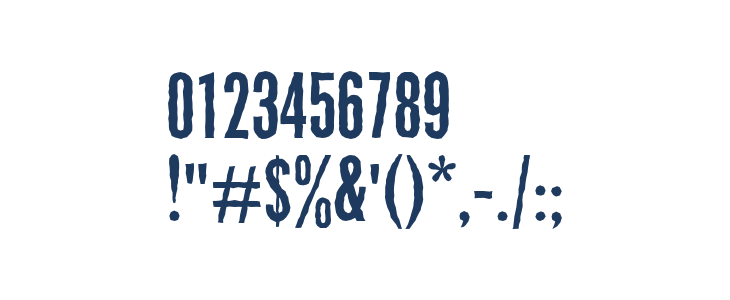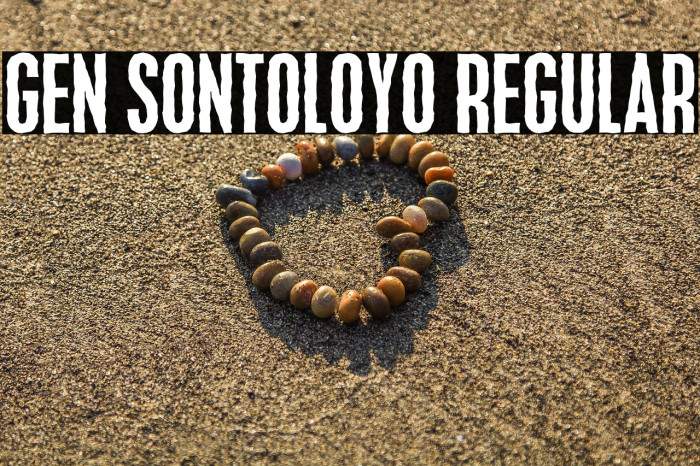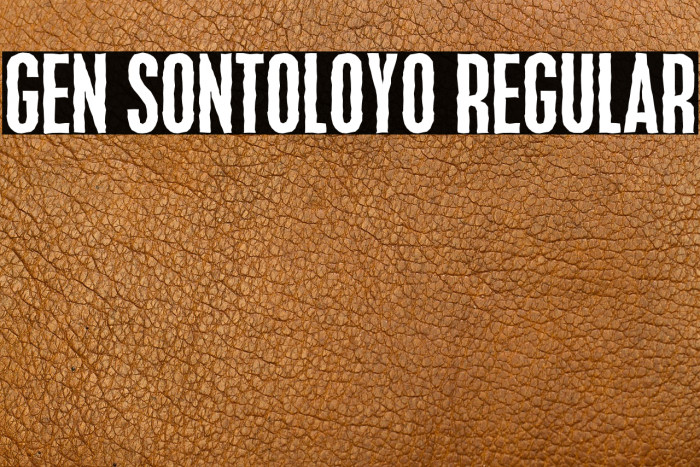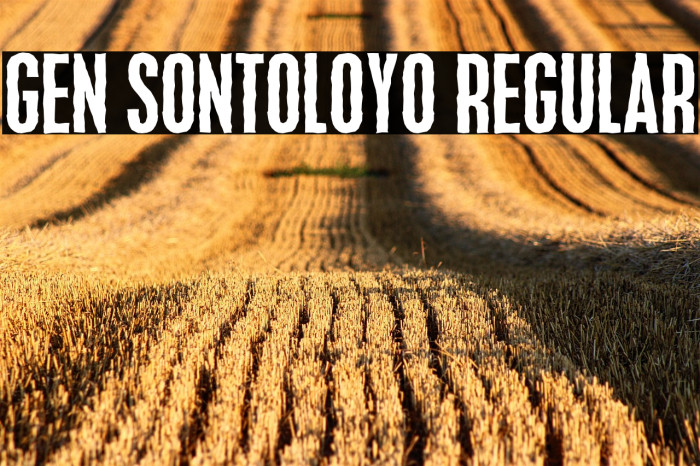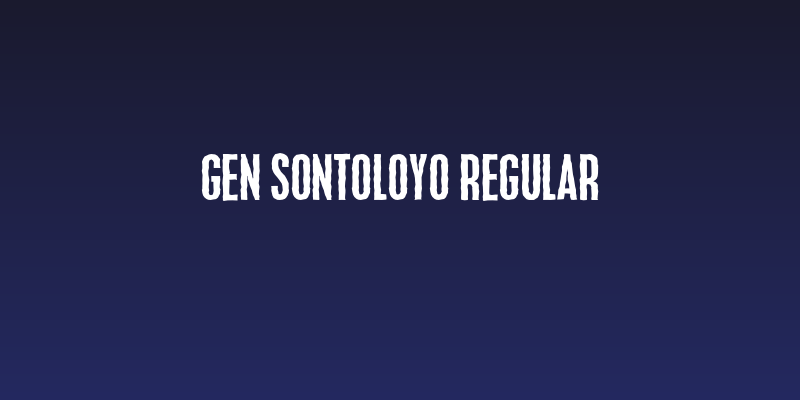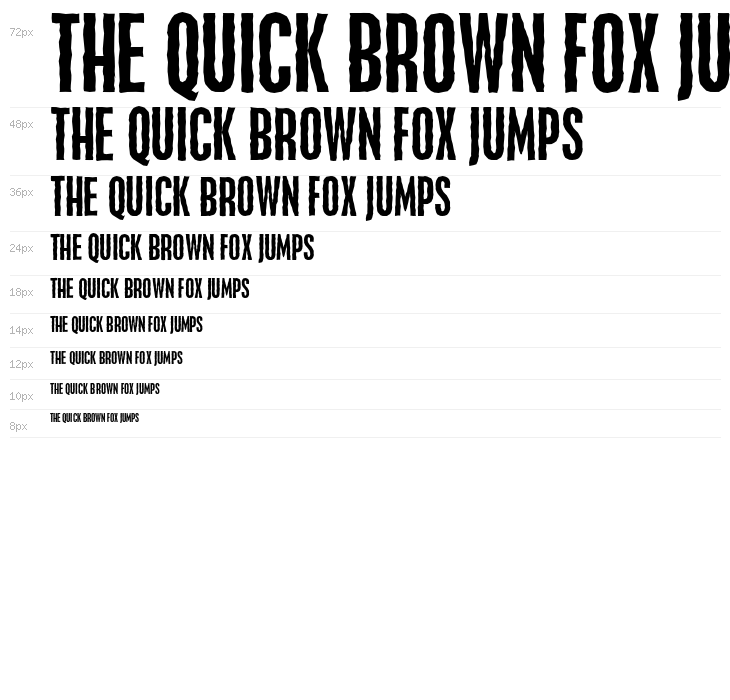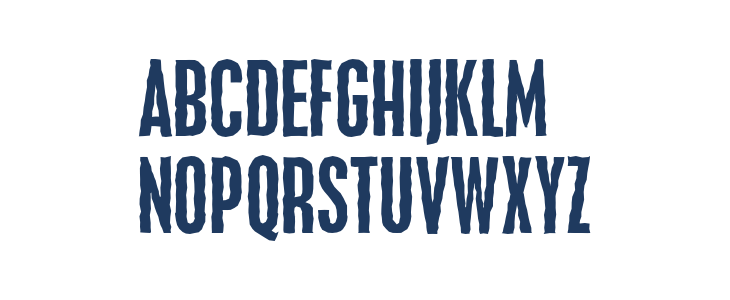
Gen Sontoloyo Regular Font
Gen Sontoloyo Regular Description
This font features a bold and rugged style with a hand-crafted appearance. The characters are tall and slightly condensed, giving them a strong and impactful presence. The irregular edges and varying stroke widths add a dynamic and organic feel, reminiscent of vintage woodblock prints. The uppercase and lowercase letters maintain a consistent height, while the numerals and special characters complement the overall aesthetic. This font is ideal for projects that require a bold statement with a touch of rustic charm.
| Proposed Projects | Ideal for posters, logos, branding, and packaging that require a bold, rustic aesthetic. |